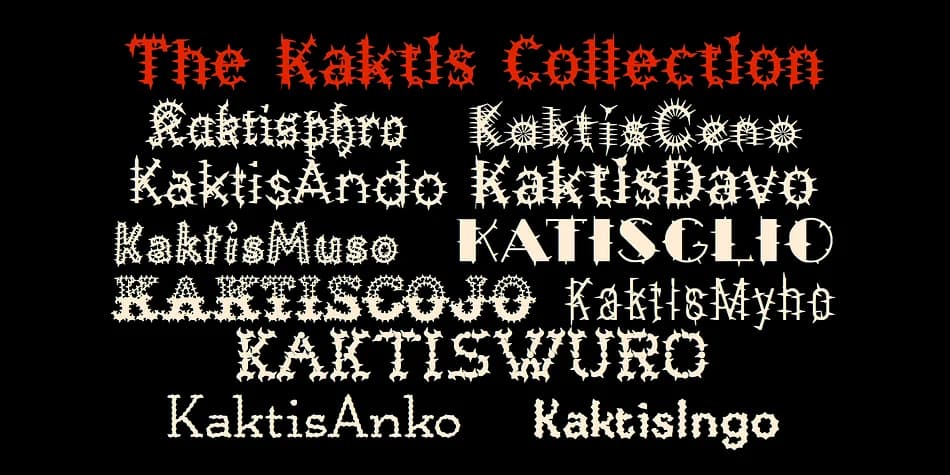
You're laying out a Halloween party invitation and need the type to look genuinely menacing. Kaktis, created by Ingrimayne Type, is a collection of eleven decorative typefaces with pronounced spikes running through every character. Each of the eleven fonts ranges from short, dense spines to long, sparse protrusions, giving you genuine control over how aggressive or refined the spiked effect becomes.
Novelty fonts usually gather dust, but this one earns its place in projects that genuinely demand visual edge. Heavy metal merchandise design, comic book headers, spooky Halloween event flyers, and band poster layouts are all natural fits. The collection handles sharp messaging with real character, whether you're building punchy warning graphics or creating alternative zine covers. Each font's different spike density gives you options, so the same message can read differently depending on which variant you pick.
The variety across the eleven typefaces means you're not locked into one approach. Whether the spikes need to be minimal accents or full visual assault, there's a variant that delivers. Grab any of these on Creative Fabrica and see how spike density can transform a message into something impossible to ignore.
Kaktis Font is a decorative font that shines as a display or heading face. Pair it with a clean sans-serif or serif font for body text β the contrast creates a clear hierarchy while the two styles stay balanced and easy to read.